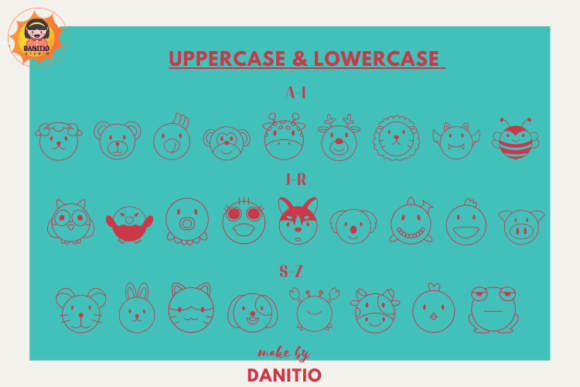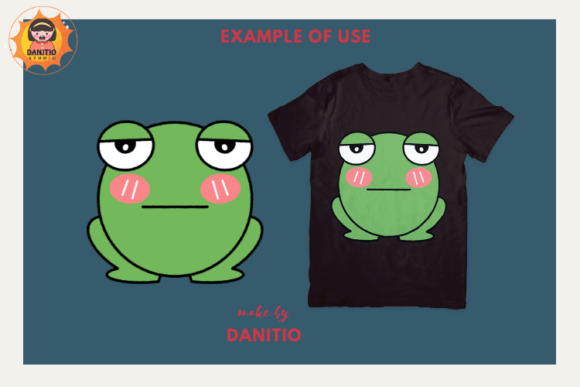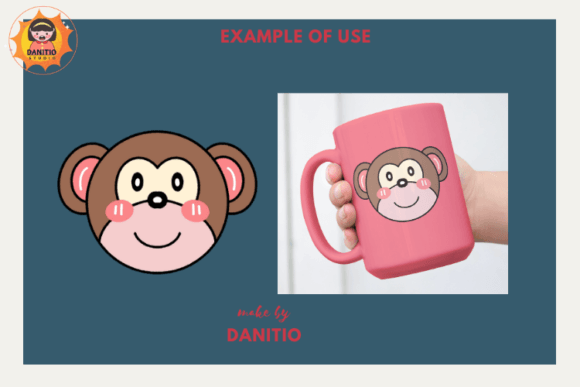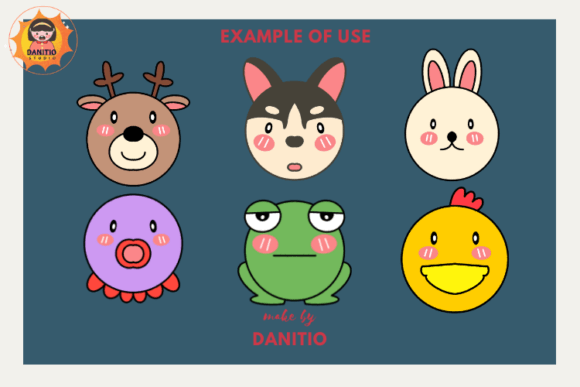
The Animal Doodle Font: A Playful Addition to Your Design Arsenal
I’ll never forget the time I was working on a children’s coloring book project, and I needed a font that would bring a smile to a kid’s face. I scoured the internet, tried out countless fonts, but none seemed quite right. That was until I stumbled upon the Animal Doodle font. Its adorable animal faces and quirky charm instantly won me over. In this article, I’ll share my experience with this delightful font, and explore its uses, features, and alternatives.
- ✨ The Animal Doodle font is incredibly cute and playful, making it perfect for projects aimed at children or those who are young at heart.
- ✅ Its Dingbats design offers a wide range of animal faces that can add a fun touch to various design projects.
- 💡 The font is versatile and can be used for digital artifacts, presentations, coloring books, worksheets, greeting cards, and even merchandise like t-shirts, mugs, and tote bags.
While the Animal Doodle font is fantastic, there are a few things to keep in mind:
- ⚠️ As a Dingbats font, it’s primarily designed for use with animal faces and might not be suitable for body text or lengthy written content.
- 🤔 Some characters may not work well in all contexts, so it’s essential to test the font with your specific design needs.
The Animal Doodle font was likely created with the intention of bringing joy and playfulness to design projects. Its creator might have been inspired by childhood doodles, favorite cartoons, or the world of children’s literature. While we may not know the exact story behind the font, it’s clear that it was designed to make a positive impact on those who use it.
| What type of projects is the Animal Doodle font best suited for? | The font is ideal for projects aimed at children, such as coloring books, worksheets, and educational materials. It’s also great for designs that require a playful touch, like greeting cards, posters, and merchandise. |
| Can I use the Animal Doodle font for body text or lengthy written content? | While the font is beautiful, it’s primarily designed for display purposes and might not be suitable for body text or lengthy written content. A more traditional font would be more readable for extended text. |